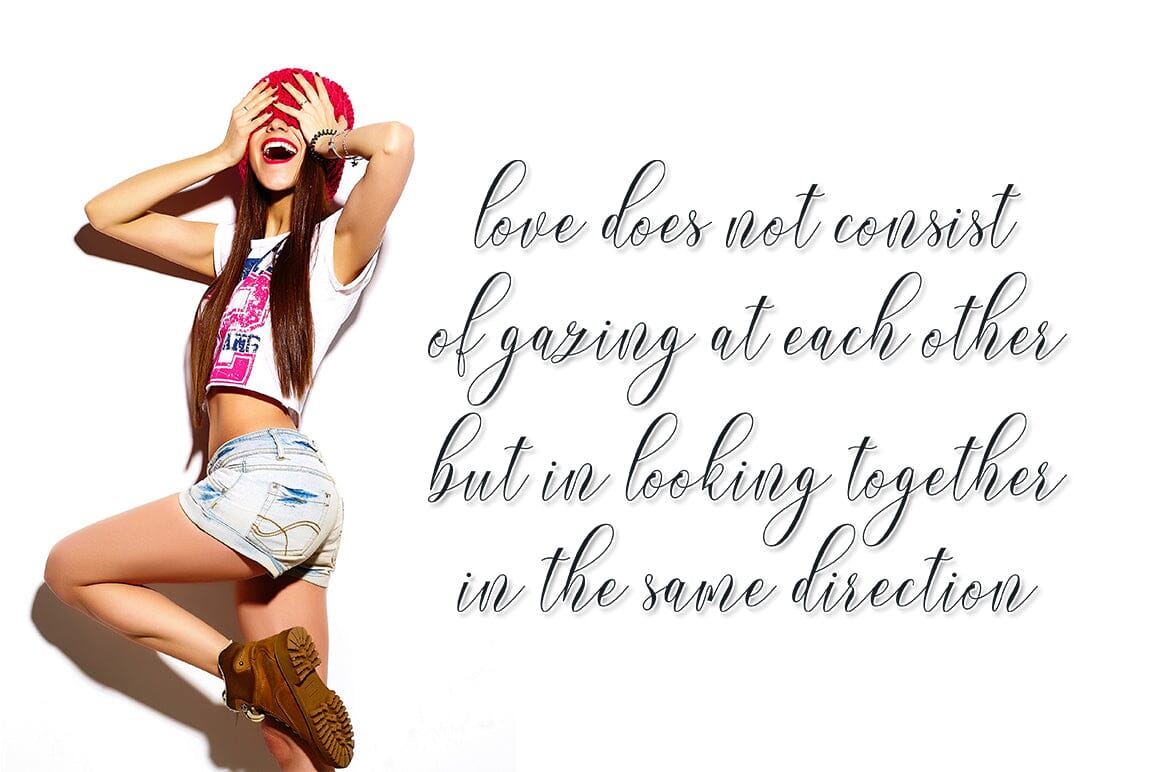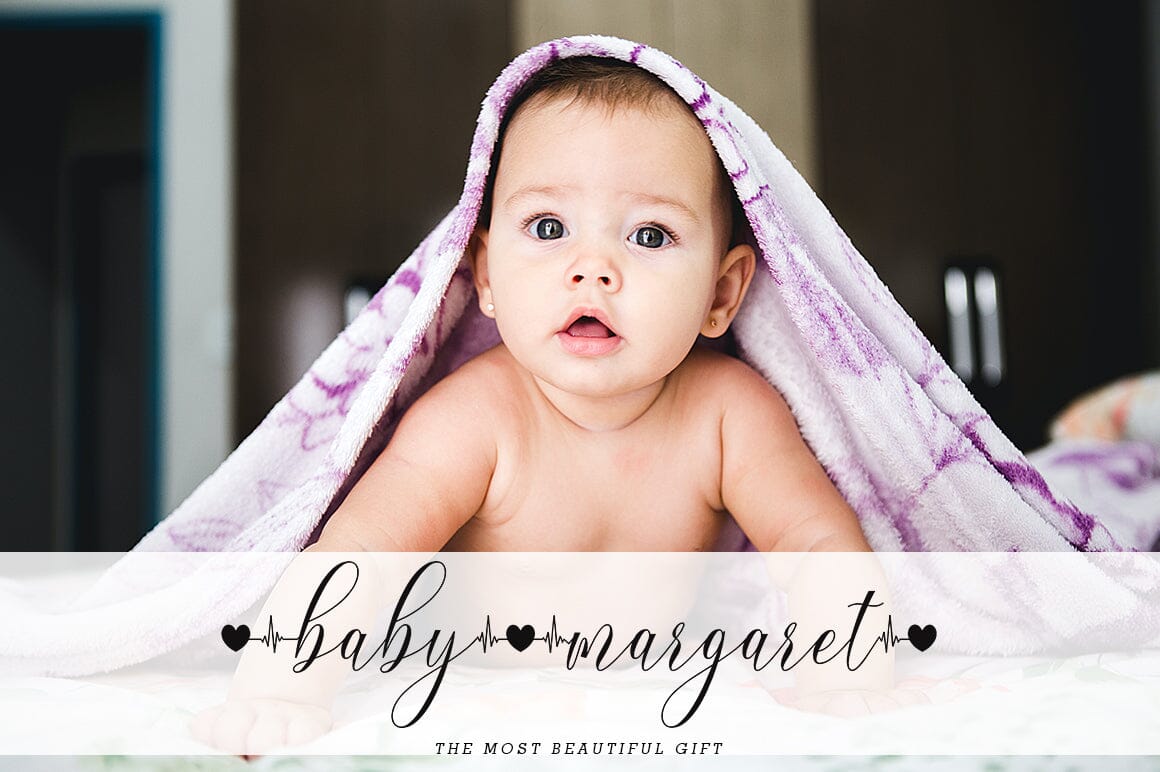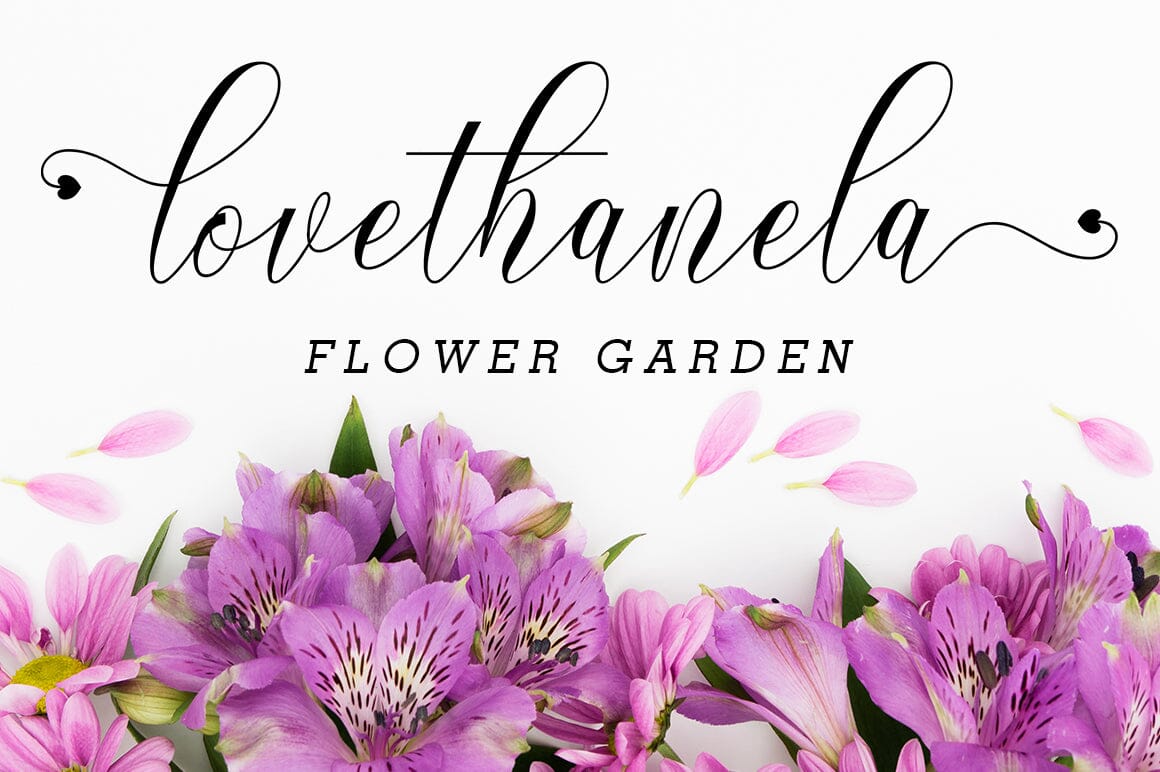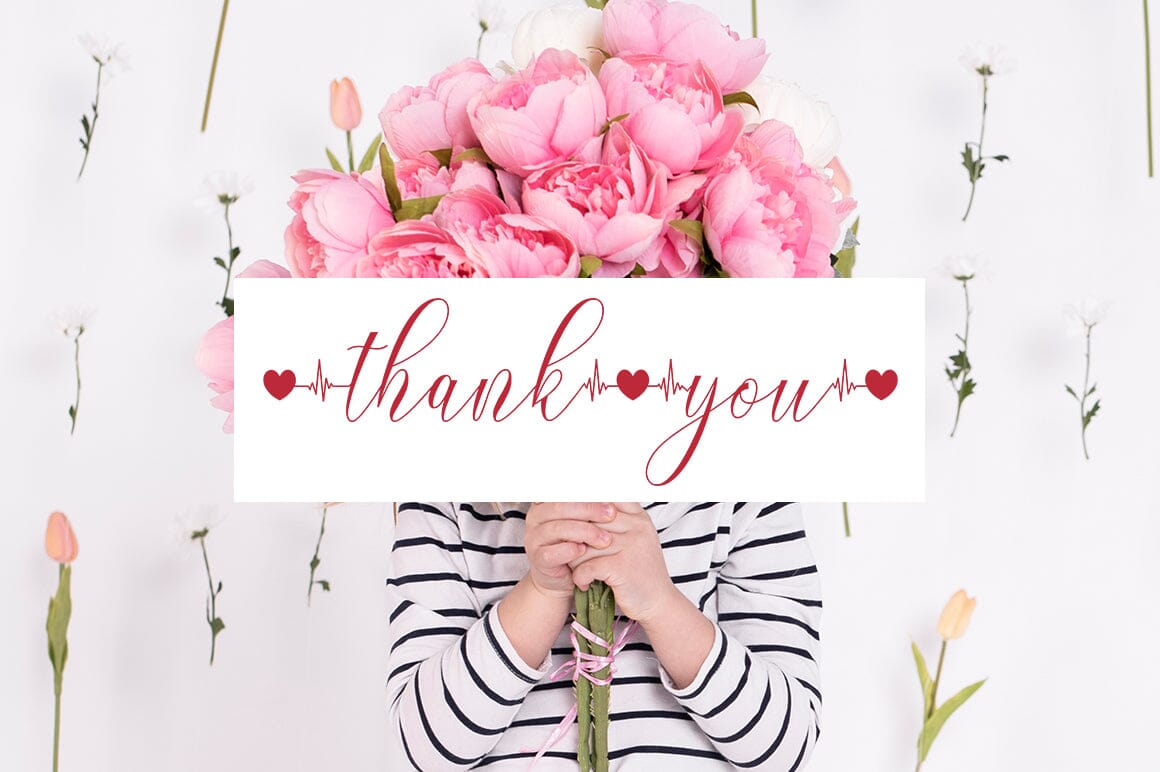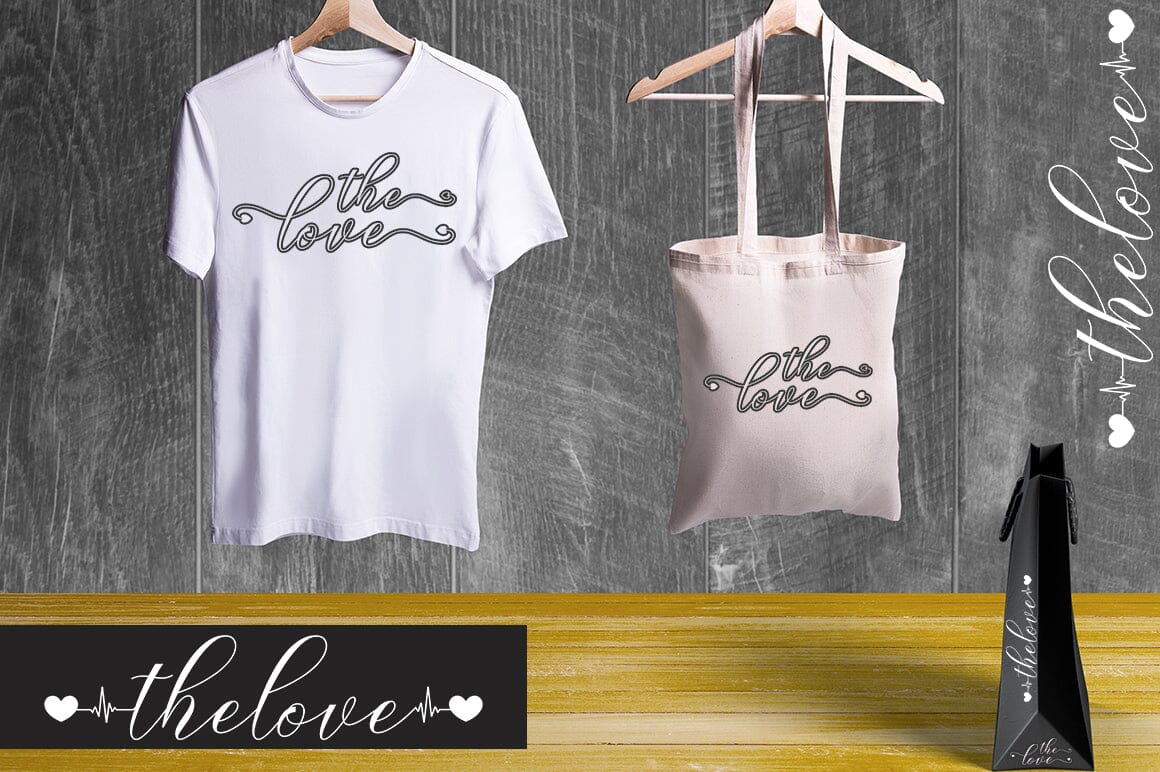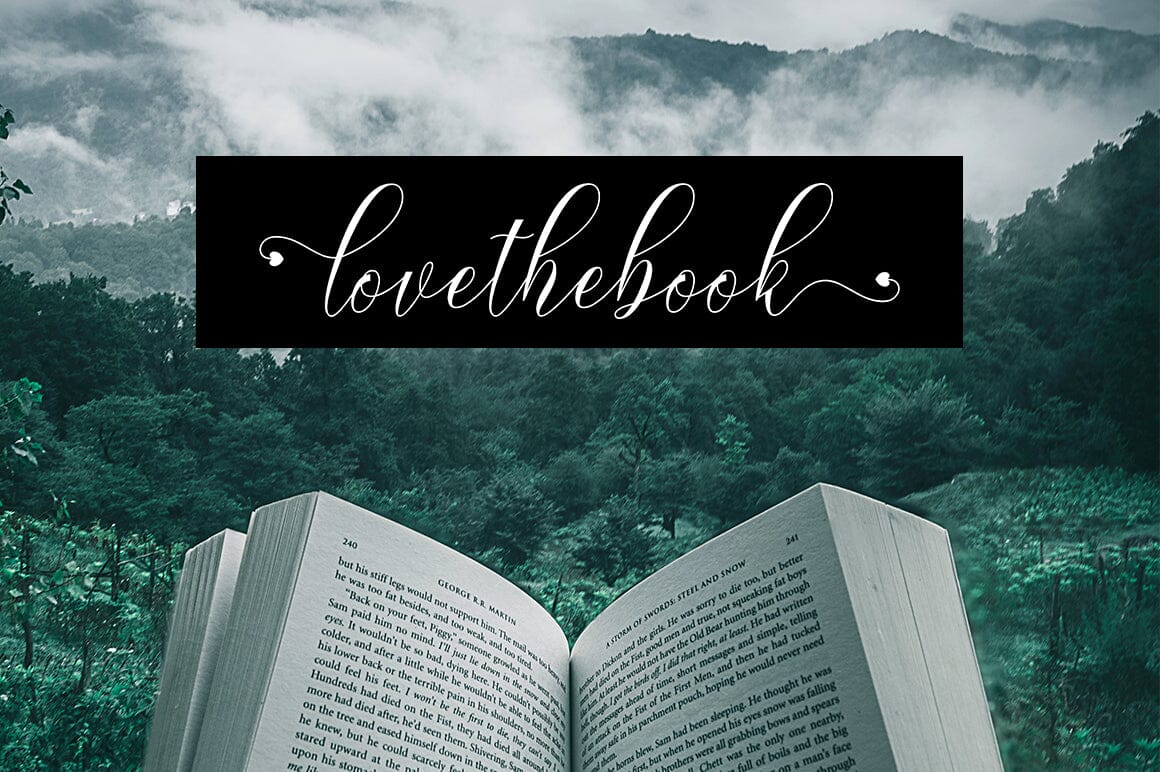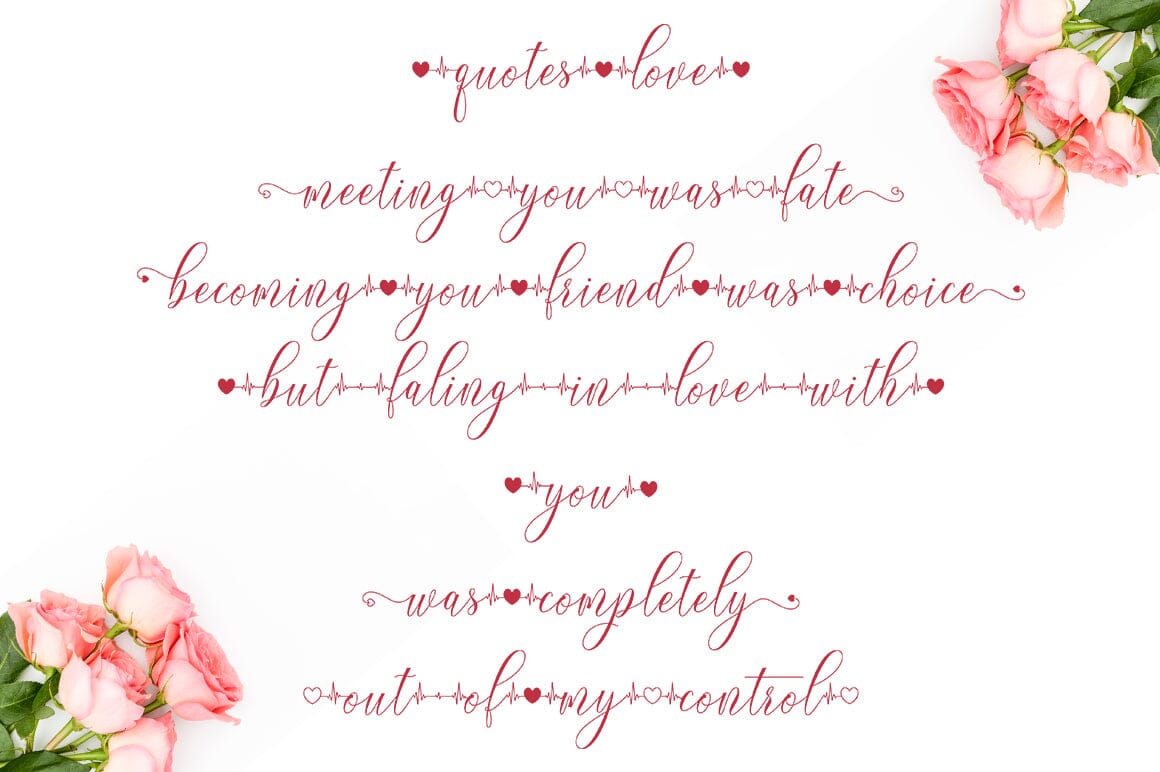
Dear Mother
About Dear Mother
dear mother is a beautiful Calligraphy font with a touch of love. dear mother is perfect for branding projects, home appliance design, product packaging, use in business cards, invitation cards, etc. Thanks for checking! I really hope you enjoy it.